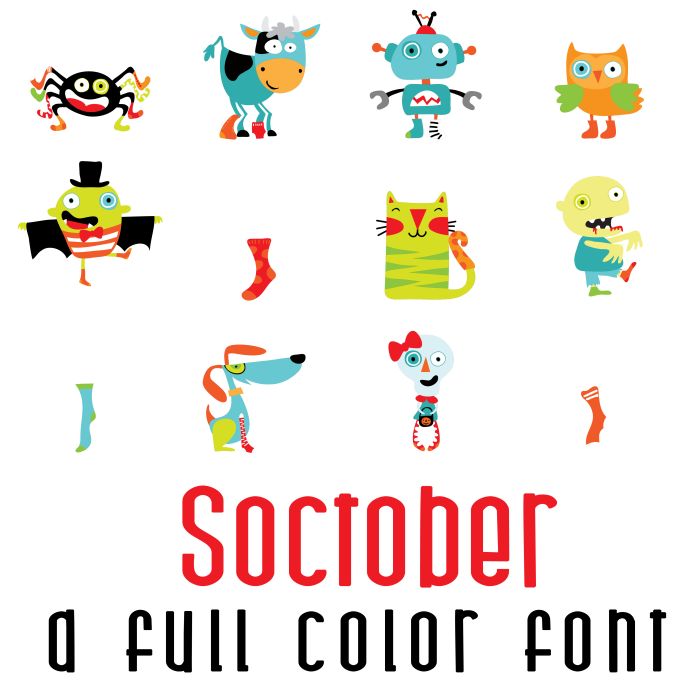
This fun full color font features 26 patched up halloween characters! Perfect for classrooms, teachers, gifts, decor, scrap book pages, planner stickers and more!. Perfect for cards, crafts, gifts, decor, scrapbook pages, planner stickers, classrooms and more!